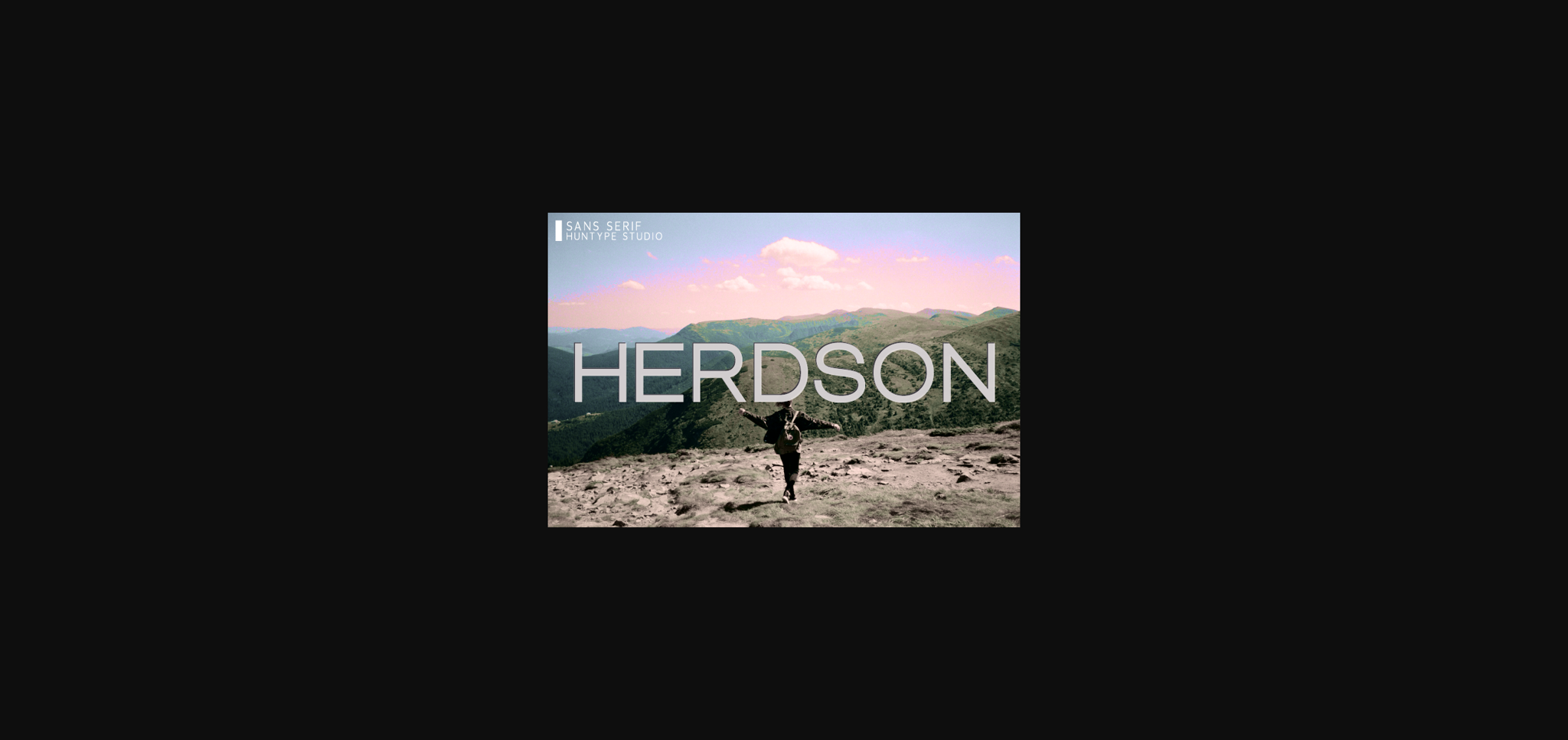
About Herdson Font
Herdson is a simple and minimal sans serif font. Its natural style makes it incredibly fitting to a large pool of designs. The only limit is your imagination!